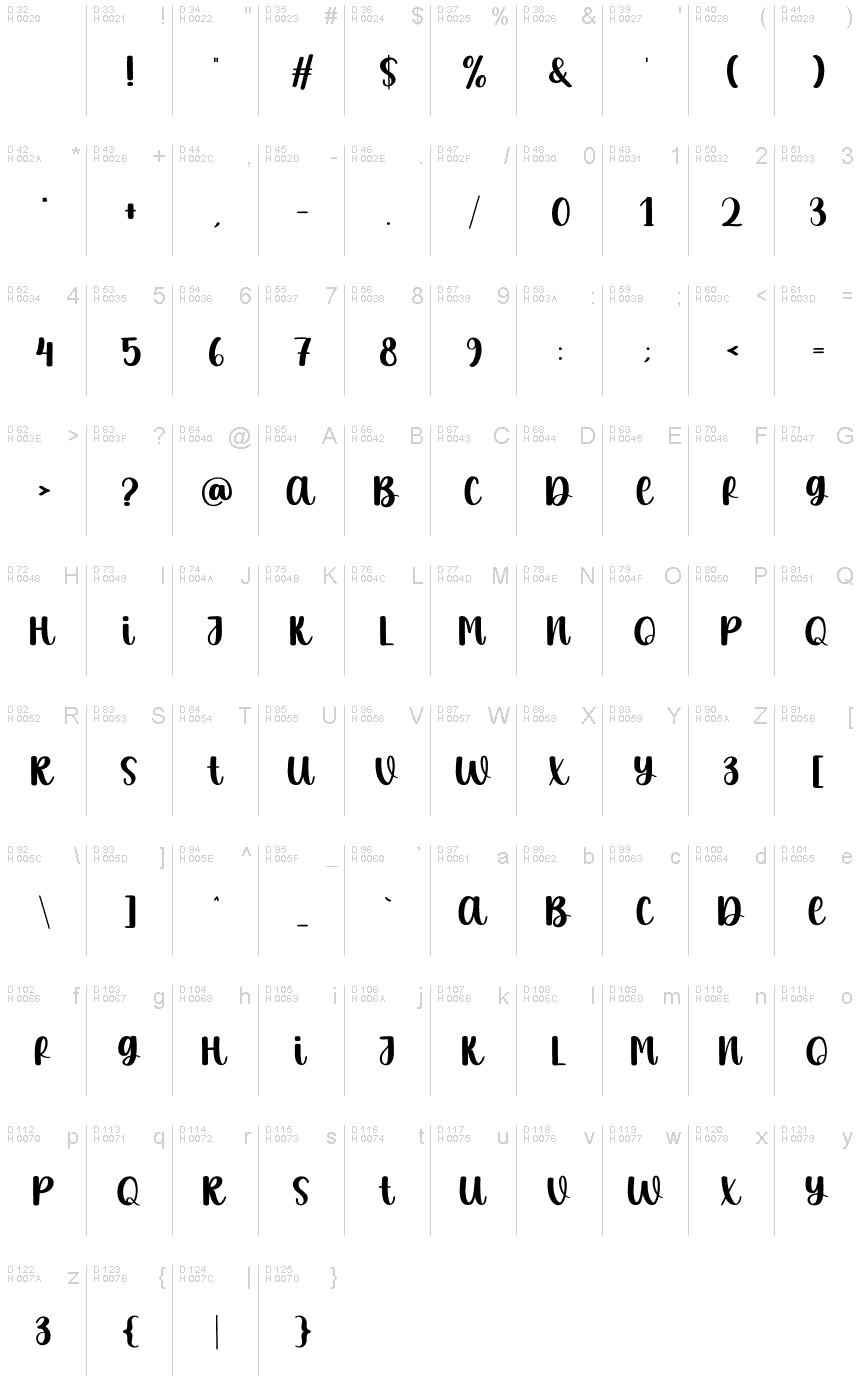
Burger Market
Burger Market, a bold brush font by Scratchones, exudes a handcrafted charm that is both approachable and impactful. With its robust weight, each character captivates the eye, showcasing a harmony of thick and thin strokes that suggest the work of a confident artist's brush. The playful yet grounded style of Burger Market makes it an excellent choice for branding projects, especially in the food industry, where it can evoke the casual dynamism of a bustling market or artisan eatery.
Its aesthetic appeal lies in its informal elegance and energetic flow, which can add personality to everything from packaging to advertising campaigns. Embrace the vivacious character of Burger Market and let your creative endeavors stand out with its distinctive flair.